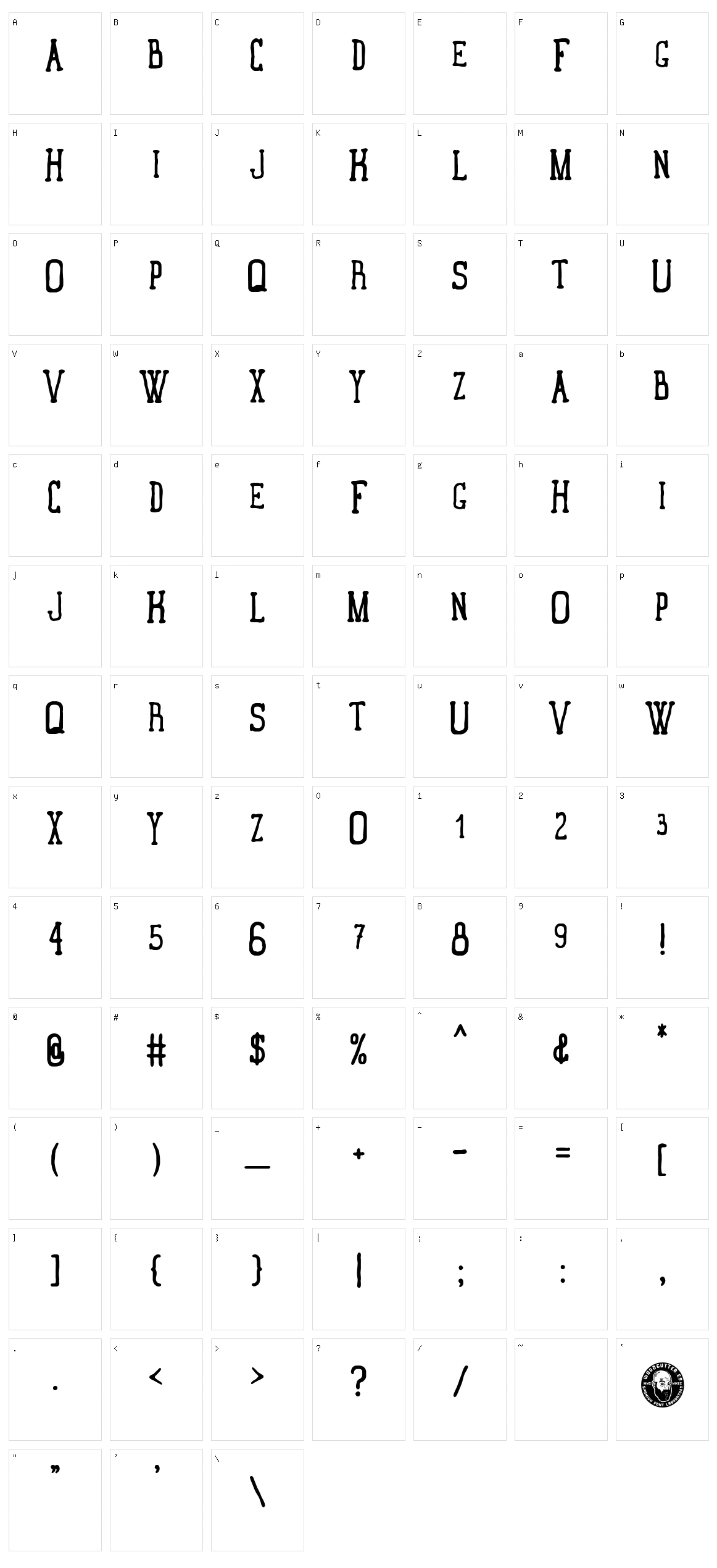
The free font Buenavista is carefully designed by Woodcutter, showcasing a thoughtful balance of creativity and usability and falls under the Cartoon font style. When you download the ZIP file, it contains only 42.33 KB of font files, making it lightweight and quick to download. Please review the license details below to understand permitted usage and distribution rights. If license information is not available, we recommend using this font for personal projects only or contacting the author directly for commercial usage permissions.